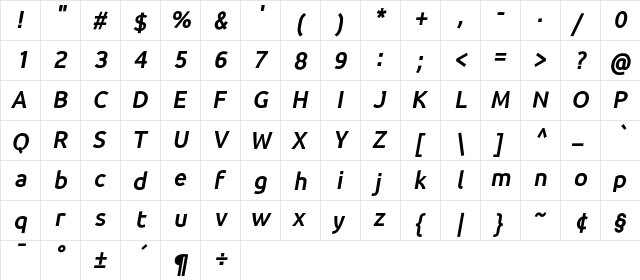
Earthbound Condensed Bold Italic Font Preview
| Style | Condensed Bold Italic |
| Foundry | Richard Alexander Hall |
| Designer | Richard Alexander Hall |
Design Context for Earthbound Typeface
Earthbound offers clean, dependable letterforms without strong stylistic allegiance, making it a practical choice for designers who need flexibility. The dynamic lean of this cut emphasises speed and emphasis in any layout. Its bold stroke weight gives it real presence on the page. The condensed width makes it efficient for tight spaces without sacrificing legibility.
Pro Tip: Try Earthbound for annotation and caption copy alongside an upright companion — the contrast in angle creates a dynamic but ordered typographic system.